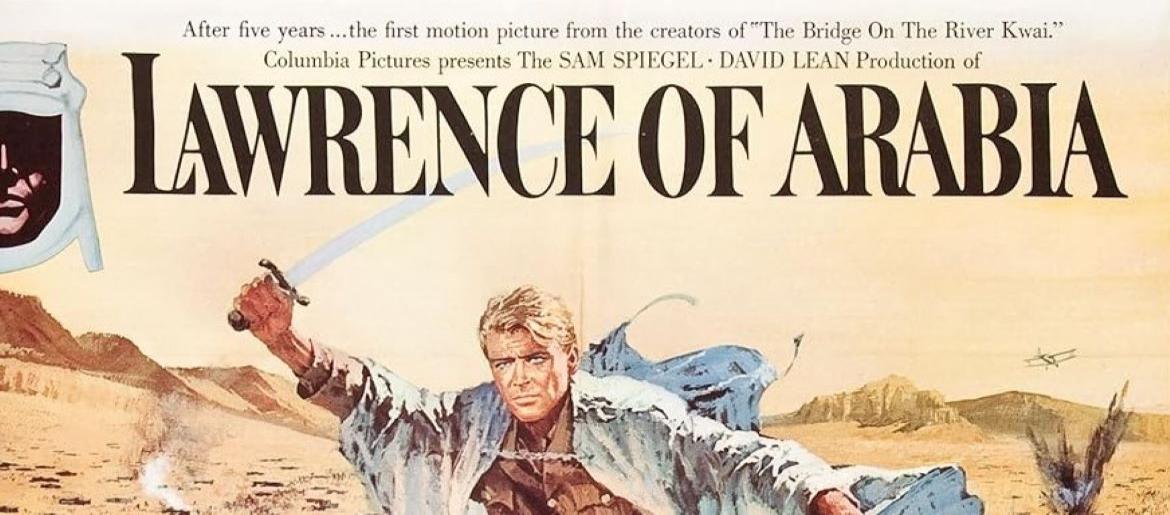
Lawrence of Arabia Font
The Lawrence of Arabia font captures the sweeping majesty of one of cinema’s greatest epics. Just as David Lean’s masterpiece paints vast desert landscapes on screen, the film’s typography mirrors that sense of grandeur, history, and timeless storytelling. The title design features bold serif lettering with a distinguished, almost regal quality, perfectly suited for a narrative of heroism, adventure, and cultural clash.
Designers who want to evoke the spirit of the Lawrence of Arabia font often turn to classic serif typefaces that carry weight and presence, with fonts like Trajan, Times New Roman, or Caslon sharing similar characteristics.